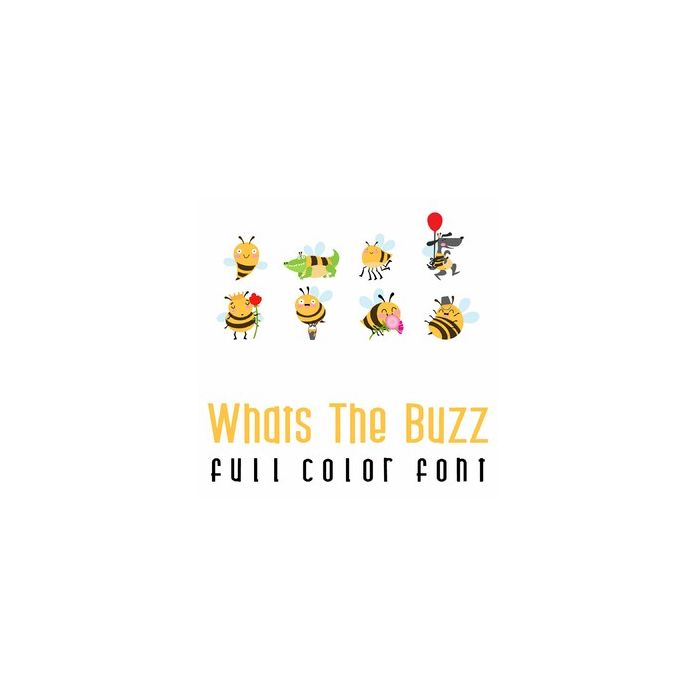
This adorable full color doodlebat font features fun bees and bee puns. Perfect for cards, crafts, gifts, decor, scrap book pages, planner stickers and more!